Inter
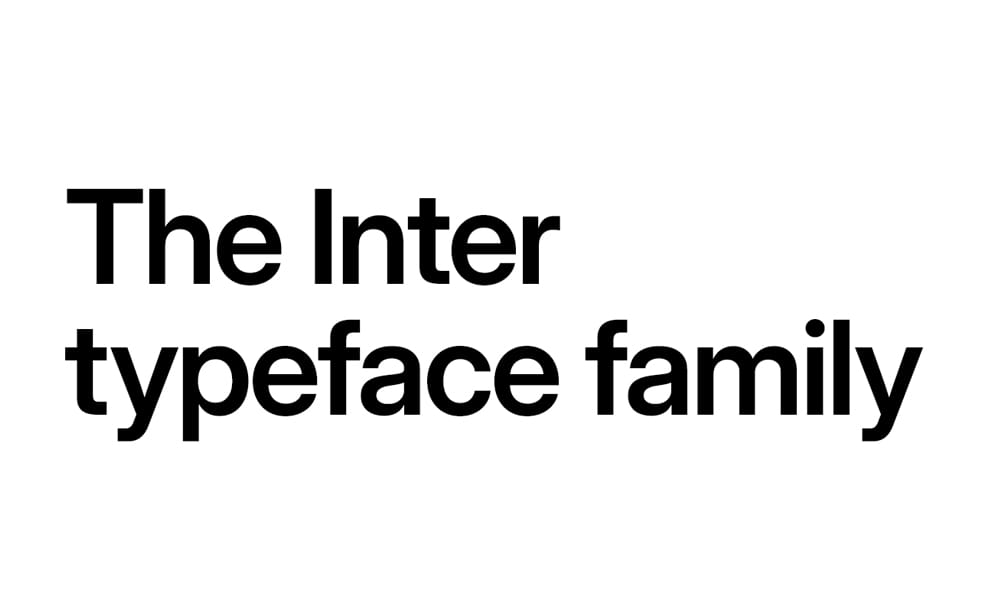
Inter has become the default choice for thousands of SaaS products—including Figma, Vercel, Linear, and Stripe—and for excellent reason. This neo-grotesque sans-serif was specifically designed for computer screens with exceptional legibility at small sizes.
Key Features:
- 9 weights (100-900) with true italics (updated in v4.0, August 2024)
- Variable font support with optical sizing axis
- Exceptional x-height for UI text at 12-16px
- Designed specifically for digital interfaces by Rasmus Andersson
- Optimized character spacing for dense information displays
Best For: SaaS dashboards, fintech applications, developer tools, complex UI with dense information, modern corporate websites requiring technical precision
Main Limitations: None—actively maintained with regular updates
Pro Tip: Enable optical sizing with font-optical-sizing: auto to let Inter automatically adjust character spacing and contrast based on font size. Use weight 450 for body text and 625 for subheadings to create a clear hierarchy without jarring weight jumps.
Important Note: Inter v4.0 (August 2024) introduced true italics and removed the slant axis. If you’re upgrading from v3.x, test thoroughly as this may affect existing designs.font-optical-sizing: auto
Roboto
The undisputed champion of Google Fonts with 27+ trillion views (July 2023-July 2024), Roboto is Android’s system font and the backbone of Material Design. Its dual nature—mechanical skeleton with friendly curves—creates an approachable yet professional aesthetic.
Key Features:
- 12 weights including Thin, Light, Regular, Medium, Bold, Black (each with italics)
- Part of the larger Roboto family (Slab, Condensed, Mono variants available)
- Optimized for mobile-first responsive design
- Exceptional legibility across all screen sizes
- Most extensively tested font for cross-browser compatibility
Best For: Mobile applications, Material Design projects, blogs requiring high readability, corporate communications, projects needing universal appeal
Main Limitations: Extremely popular—your design may feel generic without careful implementation
Pro Tip: Pair Roboto (body) with Roboto Slab (headlines) for a cohesive typographic system, or break the monotony by pairing with Playfair Display for editorial layouts. Stick to Regular (400) for body and Medium (500) or Bold (700) for headings—avoid Thin and Light for accessibility.
Choosing the Right Font for Your Project Type